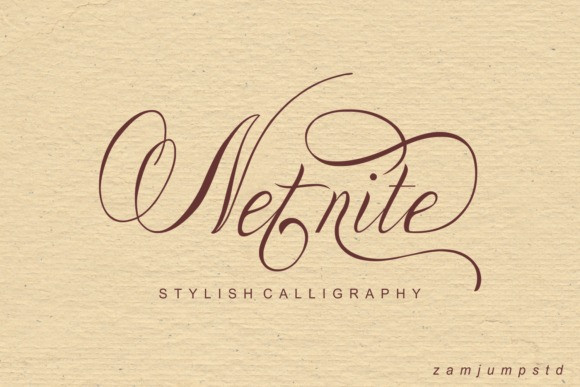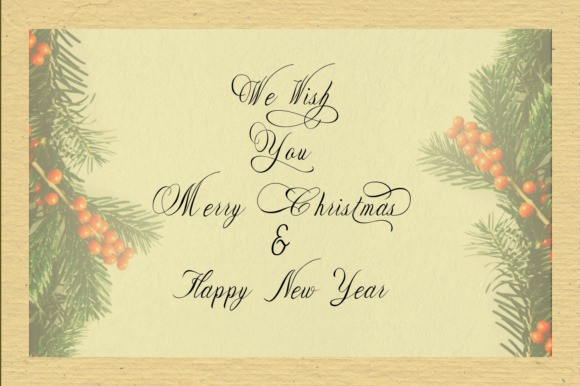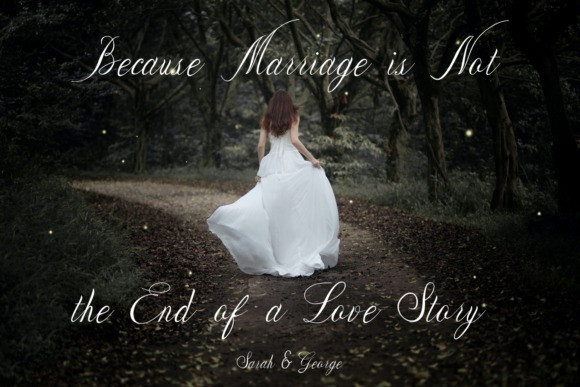
Starlight Calligraphy Font
Starlight Script Style is a new modern & fresh calligraphy script with natural style. This font will make your design look elegant, natural and stylish.
Starlight Script Style is perfect for any awesome projects such as photography, watermark, quote design, social media posts, poster, advertisements, logos & branding, invitation, product designs, label, stationery, wedding designs, product packaging, special events or any project that need handwriting taste or just simply design with stylish text overlay to any background image.